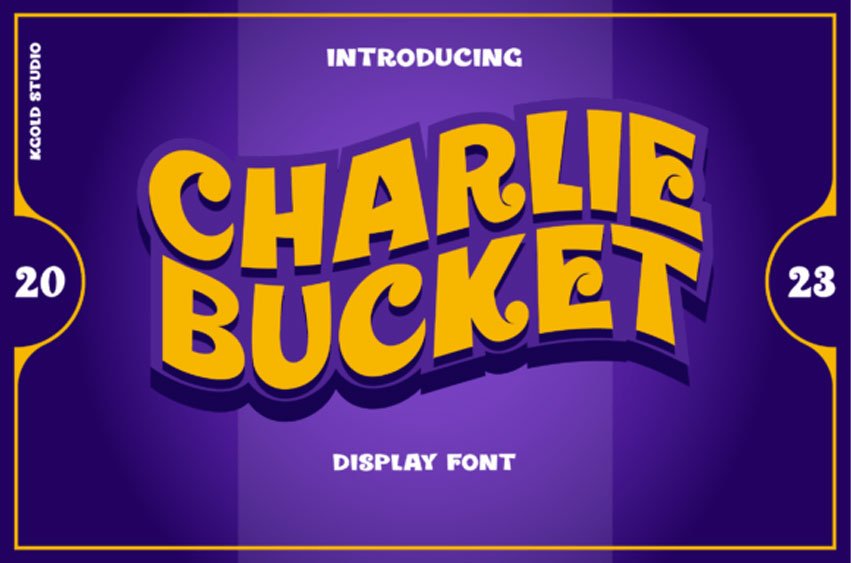
Charlie Bucket Font is a playful and fun display font.
Suitable to a wide variety of designs due to its friendly and cute style, this font has the potential to brighten up each of your creations.